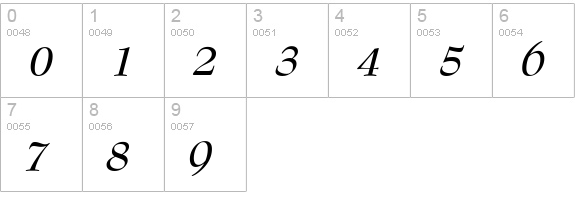
Monitor SSi Bold Italic is a strong, high-contrast, italic variant in the Monitor typeface family \xE2\x80\x94 well suited to headlines, attention-grabbing titles, and strong calls-to-action.
Monitor SSi Bold Italic is a sleek and stylish font that exudes confidence and modernity. Its bold and italicized characters make a strong statement, perfect for headers, titles, and branding materials. The unique design of this font gives off a contemporary and sophisticated vibe, making it a great choice for projects that require a touch of elegance. What's even better is that Monitor SSi Bold Italic is available for free download at FontsMarket.com. This means you can easily access this impressive font without any cost, making it a fantastic option for designers and creatives looking to enhance their projects without breaking the bank. Don't miss out on the opportunity to add this eye-catching font to your collection today!